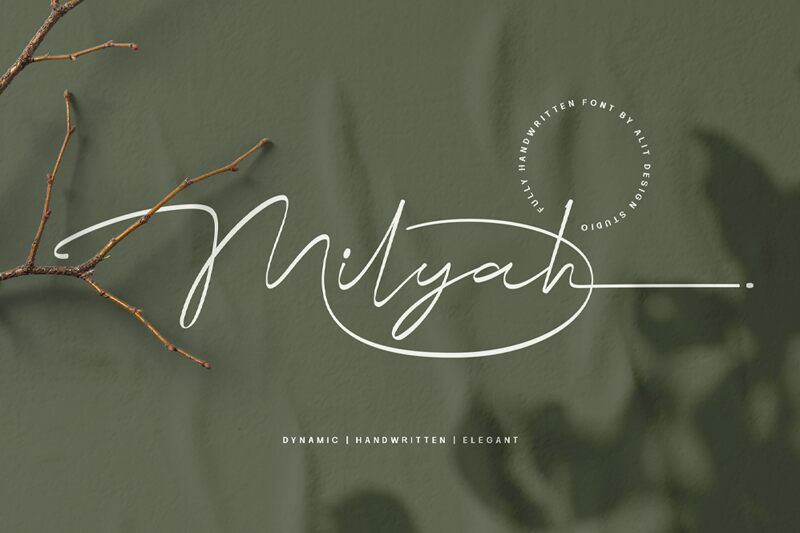
Milyah Regular
Milyah font by Alit Design delivers signature style handwriting that balances elegance, and sophistication. Crafted with extra attention to detail so it can deliver the most fluid writing possible, this display font has the lightest weight and is perfect for all sorts of interesting projects. Use it any time you want typography that’s sophisticated, modern, expressive and also graceful overall.
This free handwritten font is great for combining with images in posters, magazine spreads or covers, book covers or page headers. It was also designed for fancy invitations like wedding card ones as well as Christmas cards or gift making paper in general. Its use cases can further extend into basically anything logo or branding related be it packaging design directly or something else.